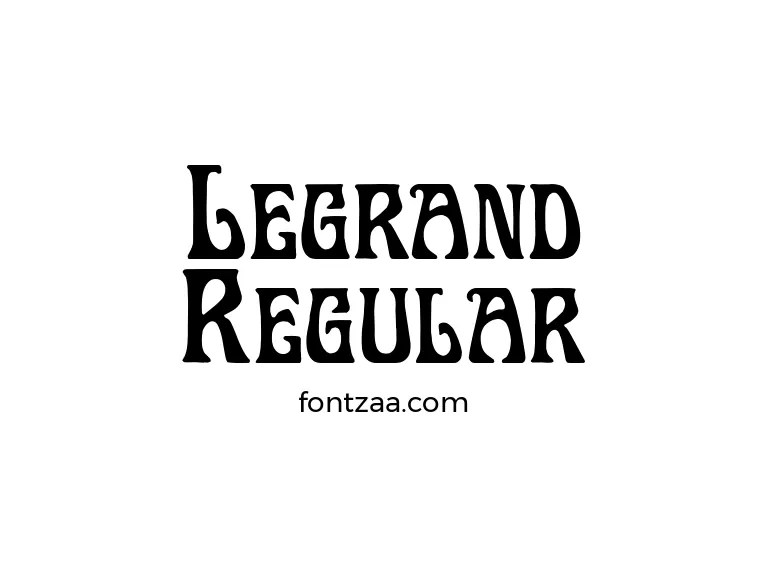
Legrand Regular Font combines distinctive character shapes with a modern appearance suited to display-focused design. The visual character of Legrand Regular Font makes it an interesting choice for designers working on creative display work. Its letter shapes become especially noticeable at larger sizes, where spacing and proportions can be explored more clearly. The typeface can change considerably depending on tracking, scale, alignment, background and surrounding imagery. Testing several arrangements before choosing the final version can reveal which characteristics of the typeface work best. Its display-focused appearance makes it worth testing in logos, wordmarks, branding, posters, packaging and promotional graphics. A clean serif or sans serif companion can handle smaller text while this font remains focused on headlines and key messages. Previewing the final layout on both large and small screens helps identify spacing and readability problems early. The available source information lists Unknown Publisher as the designer or publisher. The listed license is Free for personal use, although users should still review the original font package before commercial use. Testing the font with the actual project text can provide a much better impression than viewing isolated sample characters.
The visual character of Legrand Regular Font makes it an interesting choice for designers working on headlines, branding and promotional layouts. Its letter shapes become especially noticeable at larger sizes, where spacing and proportions can be explored more clearly. Using generous space around the lettering can help the details of the typeface remain visible instead of competing with other elements. The font can work as the primary visual element in a minimal layout or as part of a more detailed composition. Designers may explore it across logos, wordmarks, branding, posters, packaging and promotional graphics, depending on the tone and requirements of the project. Designers should evaluate the typeface inside the real project because a standalone preview cannot show every possible visual combination. Keeping secondary typography simple often allows the distinctive qualities of the main font to remain more visible. Source metadata currently associates the font with Unknown Publisher. License details are currently listed as Free for personal use. Users should verify the supplied documentation before using the font in products or paid projects. A few quick layout variations can help determine where the font creates the strongest visual result.
Designers exploring a modern typeface can use Legrand Regular Font to add a more recognizable visual voice to digital and print projects. The font can work as the primary visual element in a minimal layout or as part of a more detailed composition. Using generous space around the lettering can help the details of the typeface remain visible instead of competing with other elements. Its letter shapes become especially noticeable at larger sizes, where spacing and proportions can be explored more clearly. Its display-focused appearance makes it worth testing in logos, wordmarks, branding, posters, packaging and promotional graphics. Designers should evaluate the typeface inside the real project because a standalone preview cannot show every possible visual combination. Print and digital layouts may require different sizing and spacing, so testing the actual output dimensions is recommended. The designer or publisher information available for this typeface is Unknown Publisher. Current license information is shown as Free for personal use; checking the original documentation is recommended before client or commercial work. A few quick layout variations can help determine where the font creates the strongest visual result.
Legrand Regular Font Family
Designers can use the Legrand Regular Font Family in several ways by varying scale, alignment, background treatment and supporting typography. Legrand Regular Font stands out through its individual shapes and can become an important visual element in font-family exploration. Its letter shapes become especially noticeable at larger sizes, where spacing and proportions can be explored more clearly. The typeface can change considerably depending on tracking, scale, alignment, background and surrounding imagery. Different color combinations can make the same font feel subtle, energetic, premium or highly decorative. The font can be considered for projects such as logos, wordmarks, branding, posters, packaging and promotional graphics. A clean serif or sans serif companion can handle smaller text while this font remains focused on headlines and key messages. Keeping secondary typography simple often allows the distinctive qualities of the main font to remain more visible. The available source information lists Unknown Publisher as the designer or publisher. License details are currently listed as Free for personal use. Users should verify the supplied documentation before using the font in products or paid projects. Its final appearance will depend heavily on the surrounding colors, imagery, spacing and supporting typography.
Best Uses for Legrand Regular Font
With its distinctive letterforms, Legrand Regular Font can introduce a modern character into practical ways designers can use the typeface. Its letter shapes become especially noticeable at larger sizes, where spacing and proportions can be explored more clearly. Testing several arrangements before choosing the final version can reveal which characteristics of the typeface work best. The font can work as the primary visual element in a minimal layout or as part of a more detailed composition. Possible applications include logos, wordmarks, branding, posters, packaging and promotional graphics. For layouts containing longer information, pairing it with a simpler supporting typeface can improve readability and hierarchy. Previewing the final layout on both large and small screens helps identify spacing and readability problems early. The designer or publisher information available for this typeface is Unknown Publisher. License details are currently listed as Free for personal use. Users should verify the supplied documentation before using the font in products or paid projects. Experimenting directly in the intended design is usually the best way to judge whether the typeface suits the project.
Design Tips for Legrand Regular Font
Legrand Regular Font brings a modern personality to typography and gives designers a flexible starting point for spacing, contrast, scale and layout decisions. Using generous space around the lettering can help the details of the typeface remain visible instead of competing with other elements. Testing several arrangements before choosing the final version can reveal which characteristics of the typeface work best. The font can work as the primary visual element in a minimal layout or as part of a more detailed composition. The font can be considered for projects such as logos, wordmarks, branding, posters, packaging and promotional graphics. Keeping secondary typography simple often allows the distinctive qualities of the main font to remain more visible. A clean serif or sans serif companion can handle smaller text while this font remains focused on headlines and key messages. The available source information lists Unknown Publisher as the designer or publisher. Current license information is shown as Free for personal use; checking the original documentation is recommended before client or commercial work. The most effective treatment will vary by project, so designers should compare several versions before finalizing the artwork.
Legrand Regular Font for Logo and Branding Design
The visual character of Legrand Regular Font makes it an interesting choice for designers working on logos, wordmarks and visual identity systems. Its letter shapes become especially noticeable at larger sizes, where spacing and proportions can be explored more clearly. The typeface can change considerably depending on tracking, scale, alignment, background and surrounding imagery. Testing several arrangements before choosing the final version can reveal which characteristics of the typeface work best. Its display-focused appearance makes it worth testing in logos, wordmarks, branding, posters, packaging and promotional graphics. Previewing the final layout on both large and small screens helps identify spacing and readability problems early. Print and digital layouts may require different sizing and spacing, so testing the actual output dimensions is recommended. Source metadata currently associates the font with Unknown Publisher. License details are currently listed as Free for personal use. Users should verify the supplied documentation before using the font in products or paid projects. Testing the font with the actual project text can provide a much better impression than viewing isolated sample characters.
Legrand Regular Font Features
Legrand Regular Font stands out through its individual shapes and can become an important visual element in the visual characteristics and design personality of the typeface. The font can work as the primary visual element in a minimal layout or as part of a more detailed composition. Its letter shapes become especially noticeable at larger sizes, where spacing and proportions can be explored more clearly. Testing several arrangements before choosing the final version can reveal which characteristics of the typeface work best. The font can be considered for projects such as logos, wordmarks, branding, posters, packaging and promotional graphics. Print and digital layouts may require different sizing and spacing, so testing the actual output dimensions is recommended. Keeping secondary typography simple often allows the distinctive qualities of the main font to remain more visible. The available source information lists Unknown Publisher as the designer or publisher. Current license information is shown as Free for personal use; checking the original documentation is recommended before client or commercial work. Its final appearance will depend heavily on the surrounding colors, imagery, spacing and supporting typography.